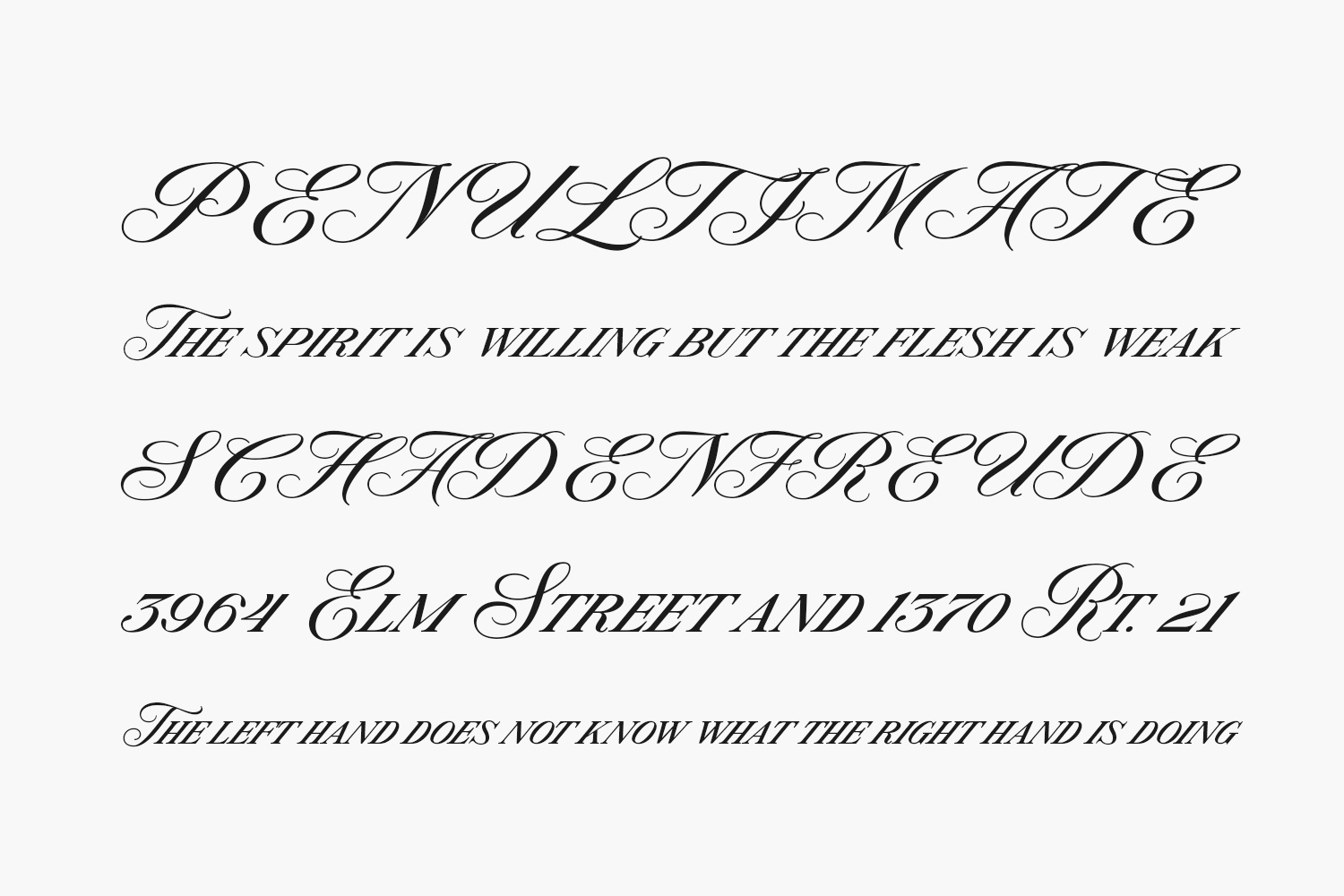
Modern Prestige Free Font is a stunning and sophisticated script font. Its fluid lines and elegant curves exude class and refinement, making it the perfect choice for wedding invitations, luxury branding, and high-end fashion projects. With its beautiful, modern look, this free font is sure to elevate any design. Whether you’re creating a logo, a stylish quote, or an eye-catching header, Modern Prestige is the perfect font to add a touch of glamour to your work.
Designed by Letterhend Studio